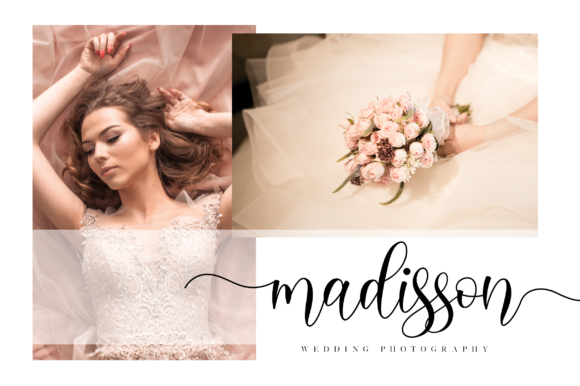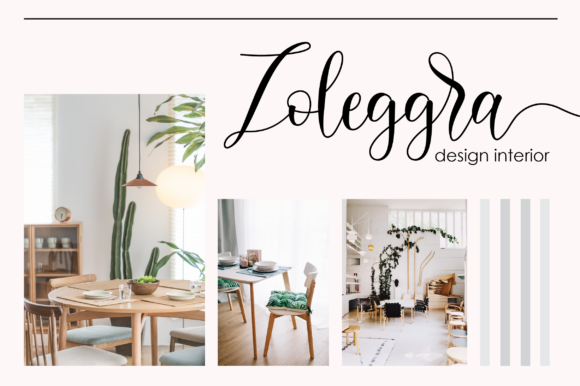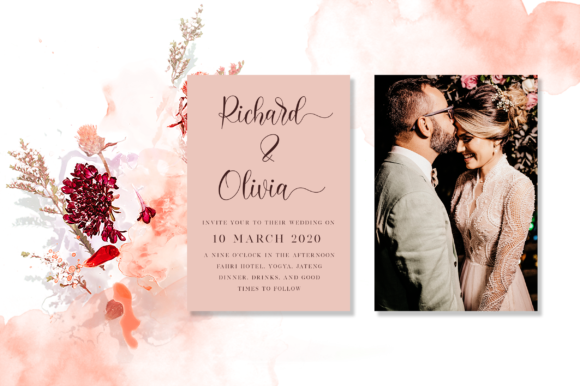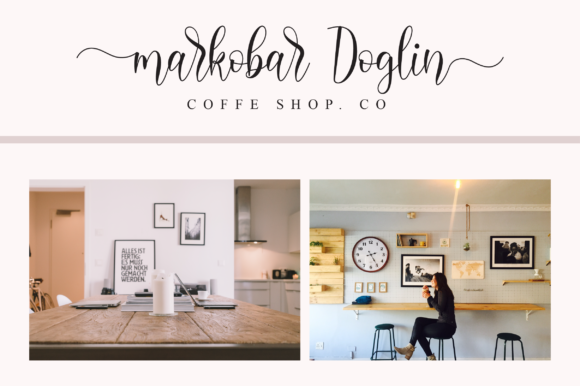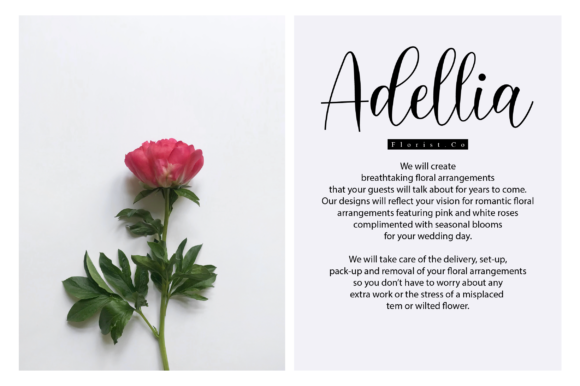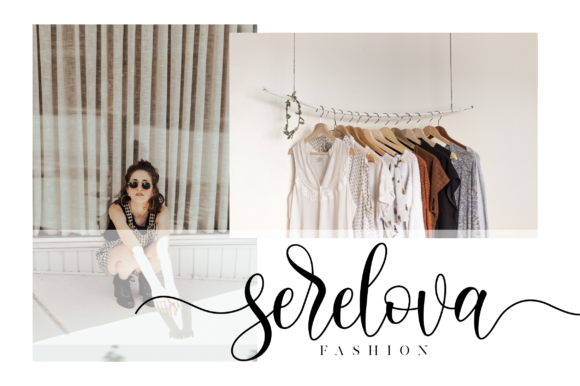
Introduction to Delara Font
Delara is a beautiful and elegant script font.
Its modern and classy look are perfect for logos, branding, invitations, social media posts and every other design that needs a handwritten touch .
Key Features of Delara Font